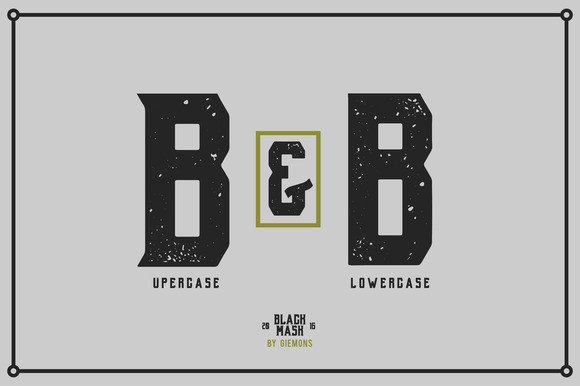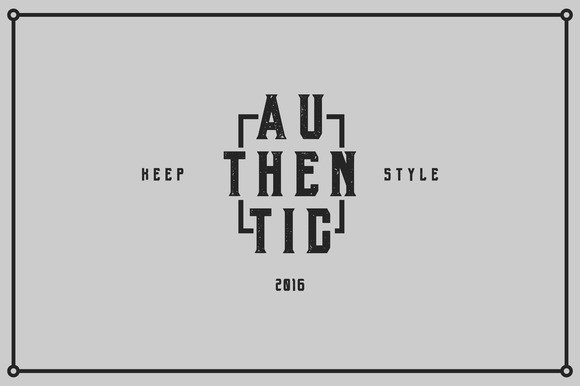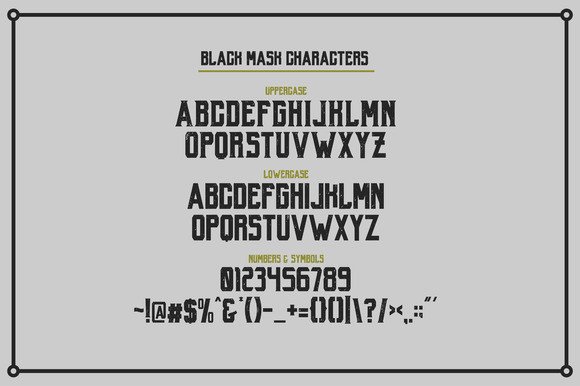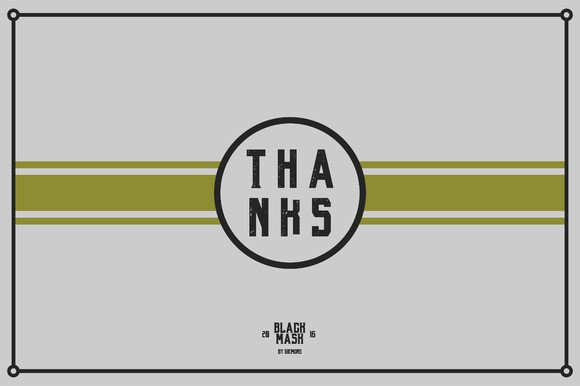
Unleash Your Creativity with Black Mask Font: A Vintage-Inspired Display Font
Are you a designer, crafty enthusiast, or simply someone who appreciates the aesthetic of vintage typography? Look no further than the Black Mask Font, a stunning display font that can elevate your creative projects to new heights. In this article, we’ll dive into the world of Black Mask Typeface, exploring its unique features, uses, and benefits.
What is Black Mask Font?
Black Mask Typeface is a vintage-inspired display font that exudes a sense of nostalgia and sophistication. With its bold, distressed texture and classic design, this font is perfect for adding a touch of elegance and whimsy to your projects. Whether you’re working on a poster, t-shirt, letterhead, logo, label, wedding invitation, album cover, or card, Black Mask Font is sure to make a statement.
Key Features of Black Mask Font
- Vintage-inspired design: Black Mask Font boasts a unique, distressed texture that gives it a worn, retro look.
- Bold and eye-catching: The font’s bold design ensures that your text will stand out, making it perfect for headlines, titles, and emphasis.
- Highly versatile: Black Mask Font can be used for a wide range of projects, from print materials to digital applications.
- Easy to read: Despite its distressed texture, the font remains clear and legible, making it suitable for body text and captions.
Uses for Black Mask Font
The possibilities are endless with Black Mask Font! Here are some ideas to get you started:
- Posters and flyers: Create eye-catching promotional materials for events, concerts, or product launches.
- T-shirts and apparel: Add a touch of vintage flair to your clothing designs with Black Mask Font.
- Letterheads and stationery: Elevate your business correspondence with a sophisticated, custom font.
- Logos and branding: Use Black Mask Font to create a unique, memorable logo for your business or product.
- Wedding invitations and cards: Add a touch of elegance and whimsy to your wedding stationery or greeting cards.
- Album covers and music packaging: Give your music releases a vintage-inspired look with Black Mask Font.
Tips for Using Black Mask Font
To get the most out of Black Mask Font, keep the following tips in mind:
- Experiment with colors: Black Mask Font looks great in a range of colors, from bold brights to muted earth tones.
- Play with texture: Combine Black Mask Font with other textures, such as patterns or images, to add depth and interest.
- Mix and match: Pair Black Mask Font with other fonts to create a unique, layered look.
- Keep it simple: Don’t be afraid to use Black Mask Font on its own – its bold design can be striking on its own.
Black Mask Font is a versatile, eye-catching display font that’s perfect for designers, crafters, and anyone looking to add a touch of vintage flair to their projects. With its bold, distressed texture and classic design, this font is sure to make a statement. Whether you’re working on a poster, t-shirt, or wedding invitation, Black Mask Font is a great choice for adding a touch of elegance and whimsy. So why wait? Download Black Mask Font today and unleash your creativity!